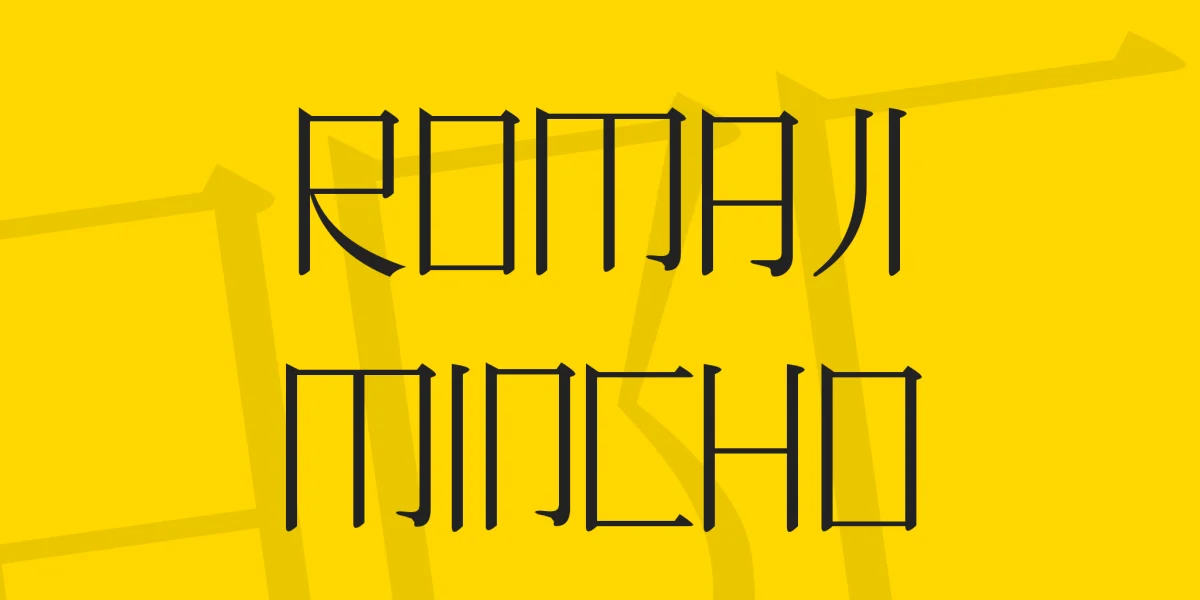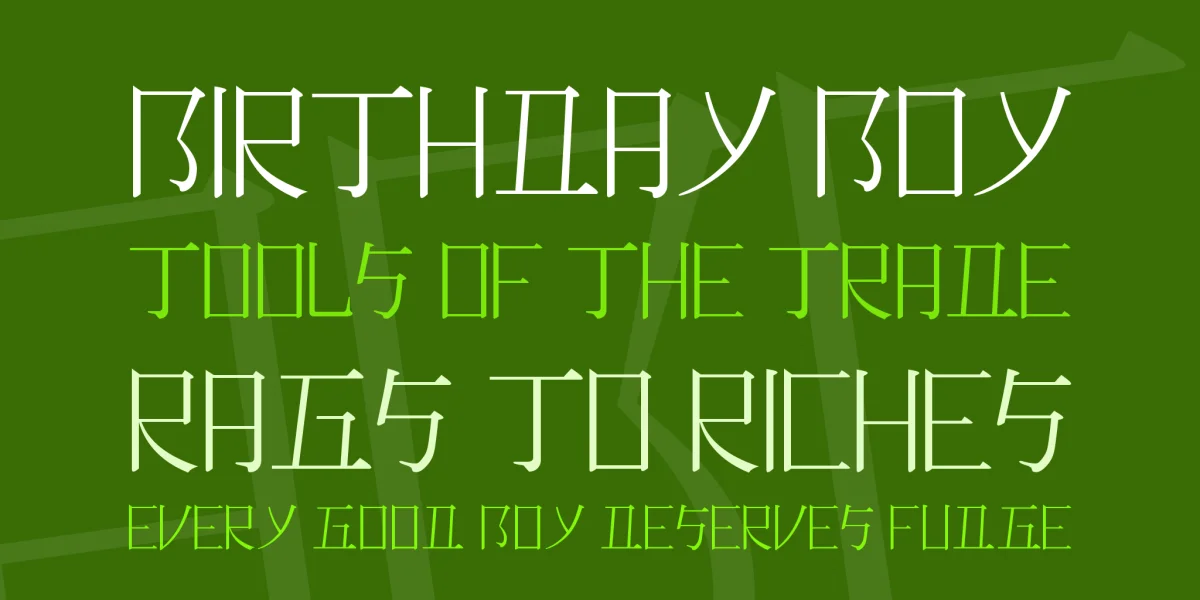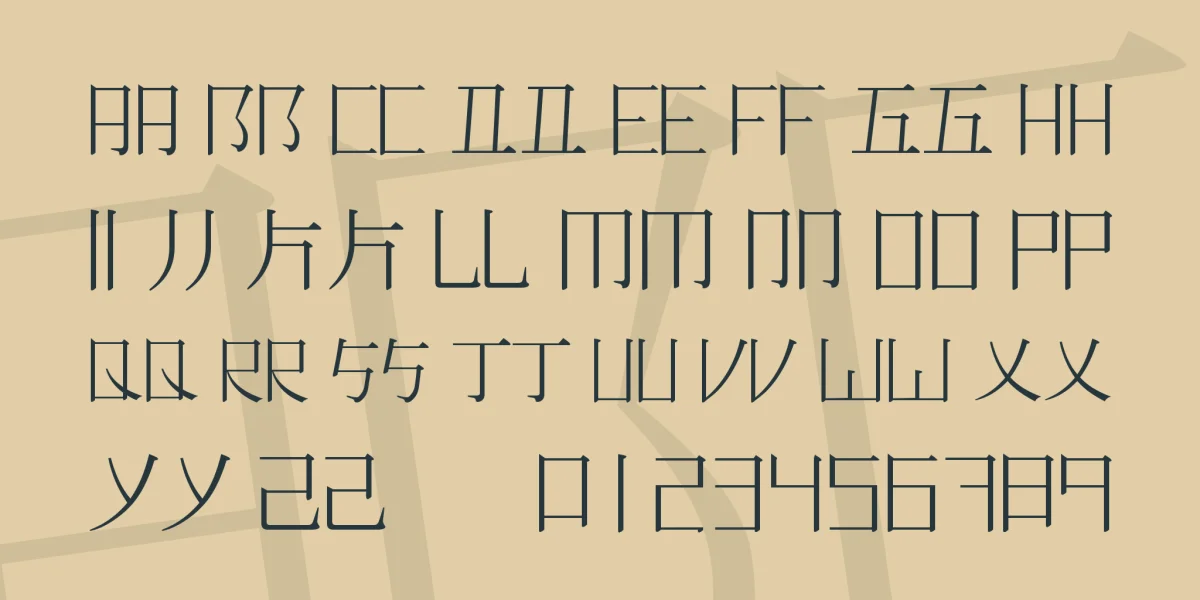
This is my interpretation of the Mincho typeface and how it could be applied to the Roman alphabet, or Romaji as it's called in Japanese. Free both for personal and commercial use, under a Creative Commons (Attribution - No Derivatives) License